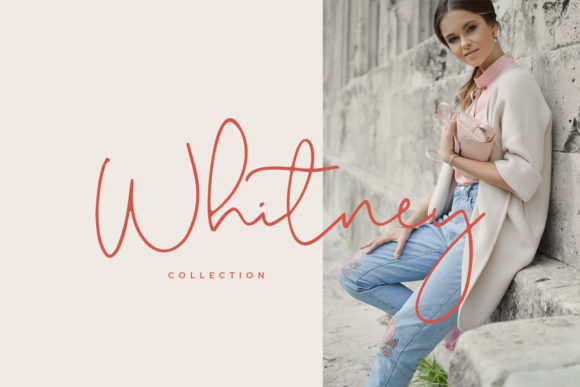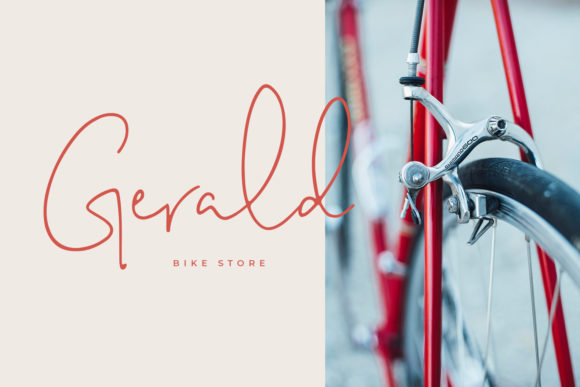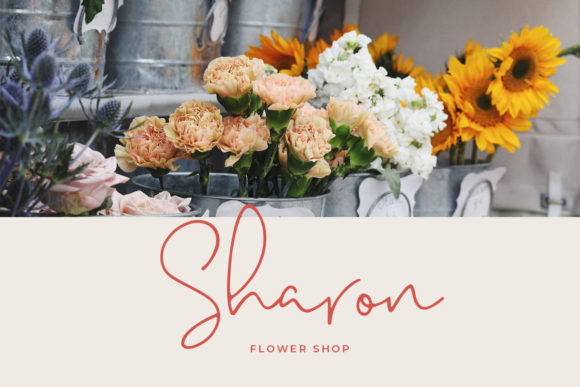
Introduction to Melatti Font
Have you ever stumbled upon a font that instantly sparks your creativity and makes you feel like a kid in a candy store? For designers, finding that perfect font can be a game-changer. It’s the difference between a good design and a great one. And today, we’re excited to introduce you to the Melatti Font – a delightful handwritten font that’s sure to add a touch of magic to your next creative project.
With its high-quality design and transparent background, Melatti Font is a valuable resource for designers looking to elevate their work. Whether you’re working on a blog post, social media graphic, or brochure, this charming font is sure to add a smart charm that will make your design stand out. And the best part? You can download it for free, making it an accessible and versatile design resource for anyone.
Key Features of Melatti Font
- Features a unique and elegant style with a transparent background, perfect for minimalist designs
- Comes in a single weight with a large x-height, making it suitable for both body text and display use
- Supports a wide range of languages, including Latin, Cyrillic, and Greek scripts
Honest Review: Melatti Font
I recently had the chance to work with the Melatti Font, and I must say it’s been a game-changer for my creative projects. This high-quality font is a fantastic design resource that can elevate your work to the next level.
One of the standout features of Melatti Font is its versatility. It’s perfect for a variety of creative projects, from branding to web design. I’ve used it for logo designs, and it’s really helped me achieve a professional and modern look.
Here are some of the things that work well with Melatti Font:
- ✨ High-quality design that’s perfect for any project
- ✨ Transparent background, making it easy to work with
- ✨ Perfect for creating a consistent brand identity
- ⚠️ Limited number of font styles available
- ⚠️ Not suitable for projects that require a lot of customization
Overall, I’m really impressed with the Melatti Font. It’s a great addition to any designer’s toolkit, and I would highly recommend it for any creative project.
How to Use Melatti Font
Melatti Font is a high-quality design resource that offers a unique and creative style. With its transparent background, it’s perfect for adding a touch of elegance to your next project.
Melatti Font is perfect for a variety of creative projects, including logos, business cards, and brochures. Its unique style and high-quality design make it a valuable resource for designers and non-designers alike.
Tips for Getting the Most Out of Melatti Font
To get the most out of Melatti Font, be sure to use it in conjunction with other high-quality design resources. Experiment with different font styles and sizes to create a unique and eye-catching design.
The Dancing Script Font is a high-quality, elegant script font that is perfect for use in creative projects requiring a touch of flair. It features a flowing and dynamic design that works well with a transparent background. The Dancing Script Font offers a similar feel to Melatti Font but with a more playful and energetic appearance.
Melatti Font is designed to work well with transparent backgrounds, making it ideal for creative projects that require a clean and modern look. However, please note that the font’s transparency is dependent on the software or application being used.